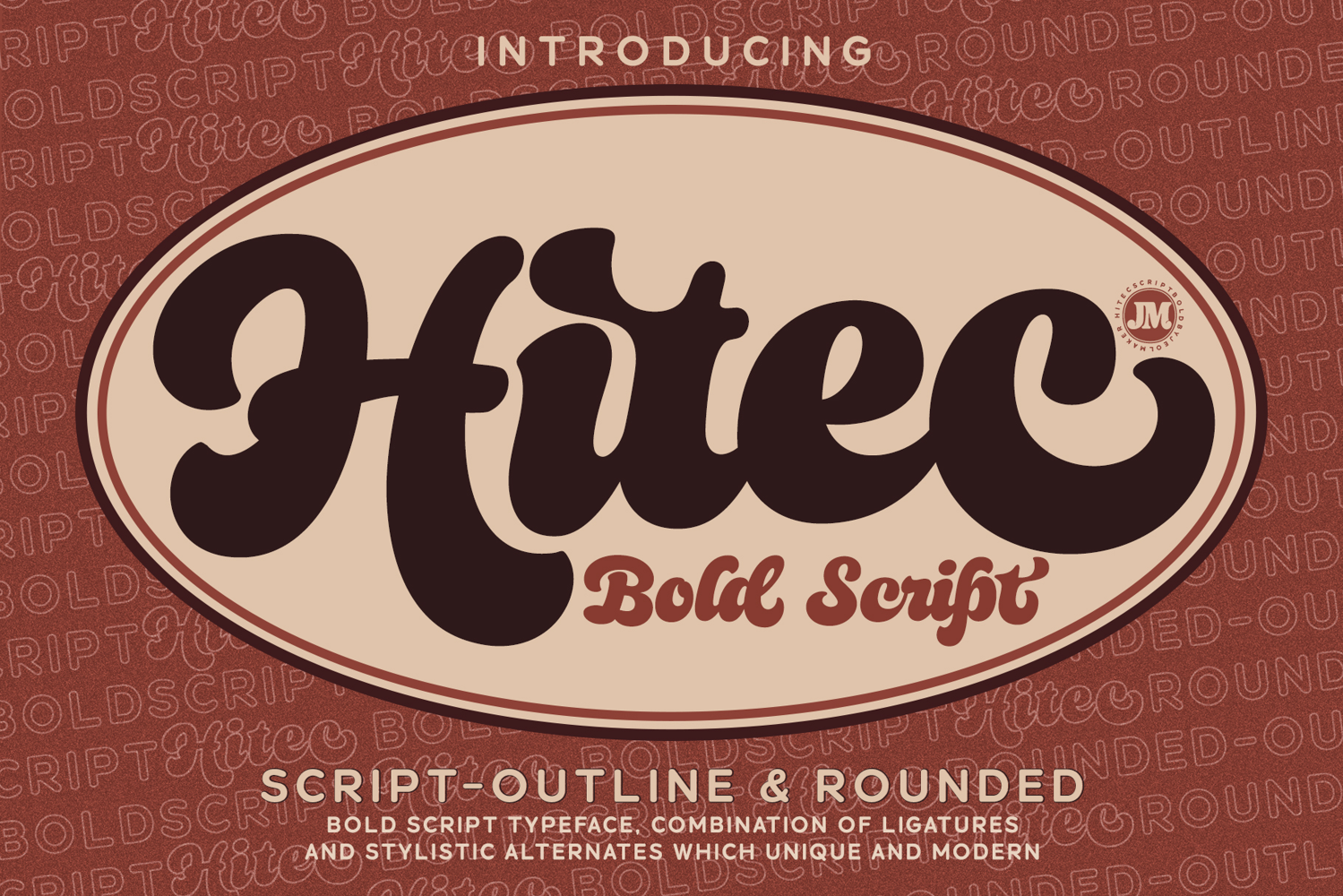
Hitec JM Script font Duo
**Hitec Bold Script with Rounded **
This font comes in a bold version and is combined with rounded and outline. The author designed this collection of letters inspired by retro typography designs on posters from the 80s, which were so sturdy, unique and modern for their time.
Hitec Bold Script with Rounded includes: Stylistic Alternates, Ligatures & Stylistic Sets. You can choose an alternative style of up to 20 Stylistic Sets per letter and 793 Glyphs. By using Glyph in software programs like Photoshop, Illustrator and CorelDraw X version. You can also access this in many other programs by using your character map (Windows) or font book (Mac).